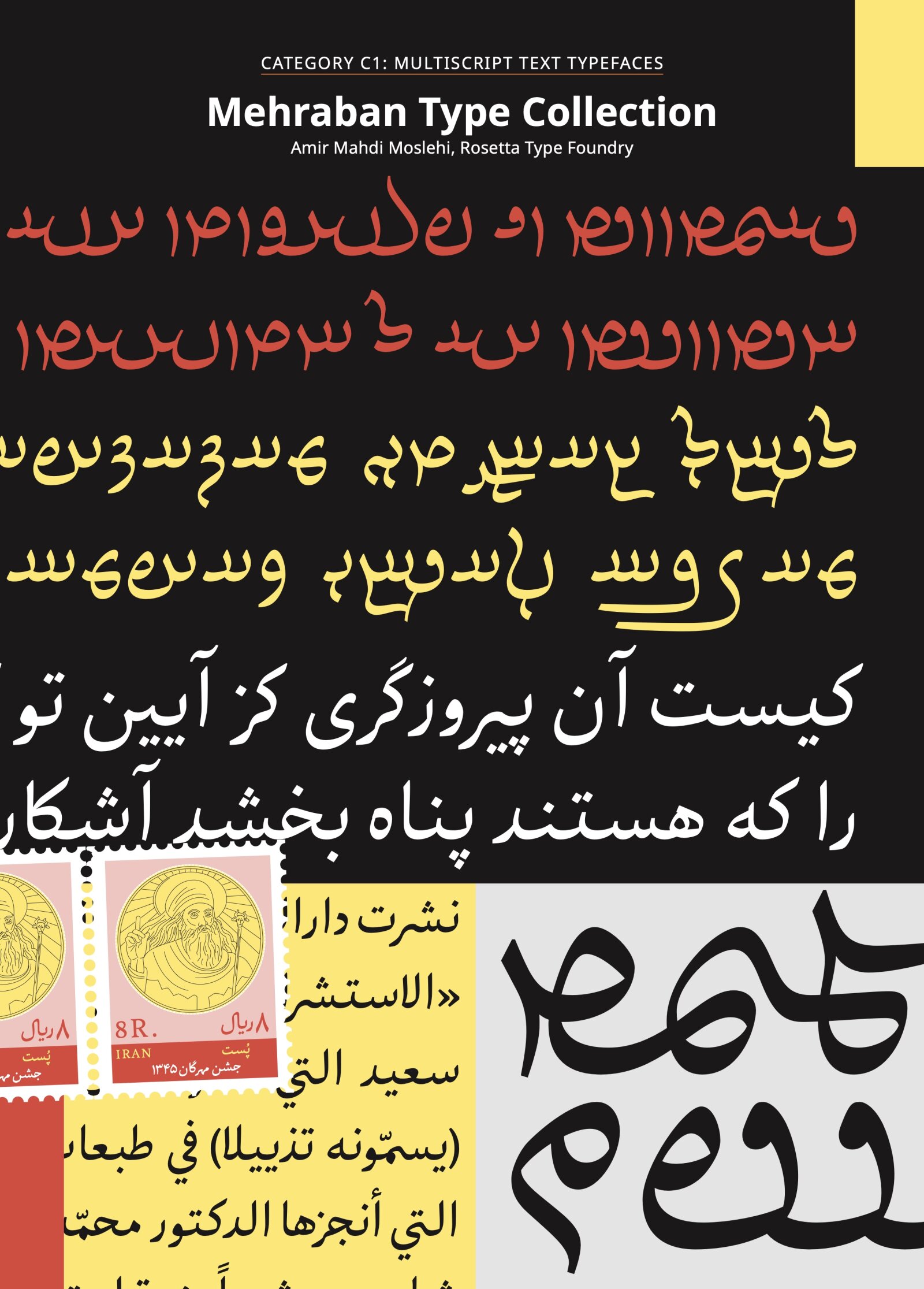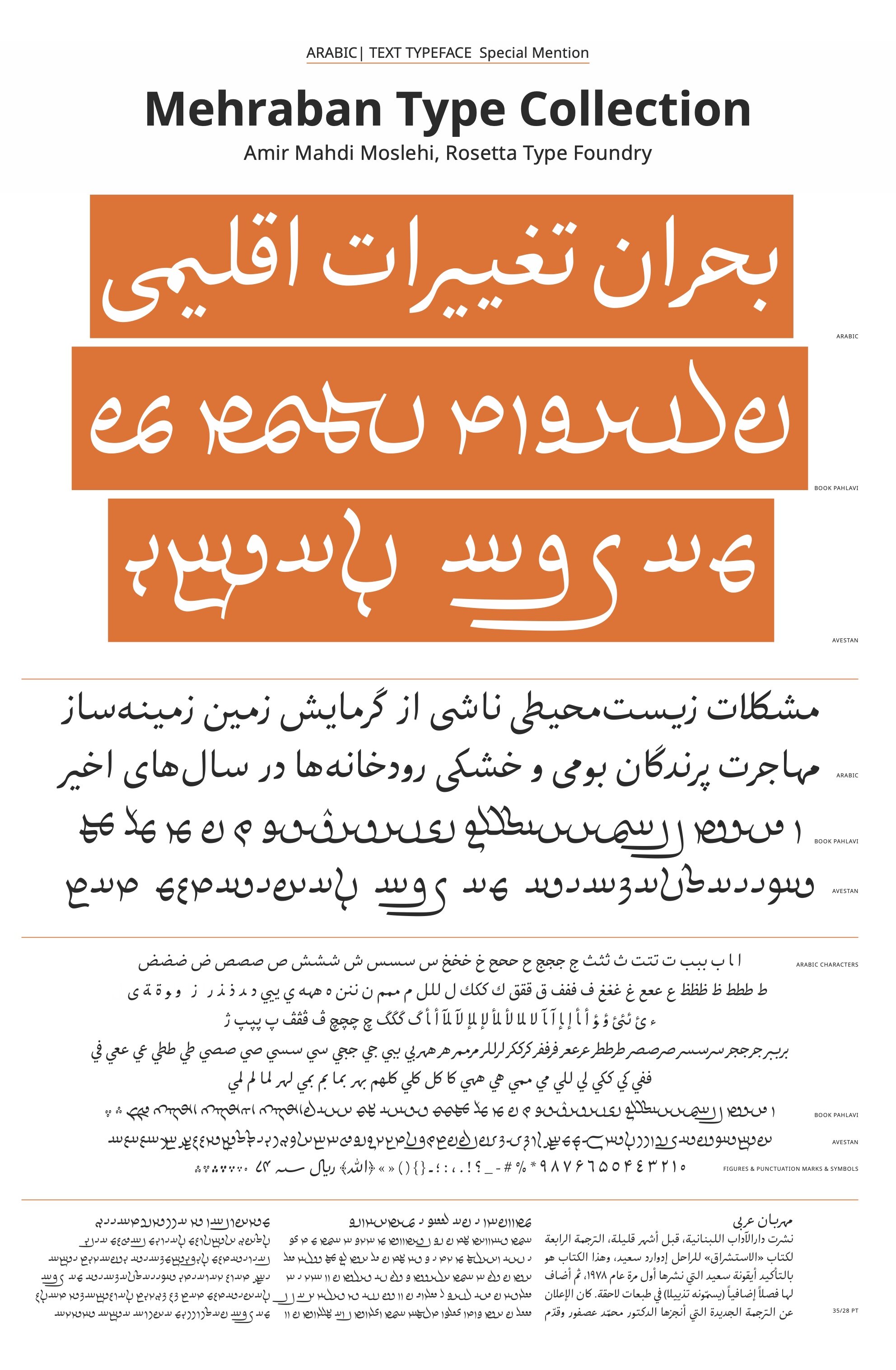
Mehraban Type Collection
by Amir Mahdi Moslehi
Arabic derived Scripts
The typeface is valuable because it combines important local scripts into well-crafted letter forms, maintaining each script’s unique characteristics. The experimentation with the PAHLAVI and AVESTAN scripts is intriguing. However, the Arabic script requires substantial enhancement. Despite these areas for improvement, the effort to harmonize these related scripts is commendable and will benefit academic researchers focusing on historical scripts from Iran.
Due to the jury’s decision, this typeface has been moved from the C1 Multiscript Text Typefaces to A1 Arabic Text Typefaces Category, since the Arabic is the only script in this submission the jury could evaluate in this case.